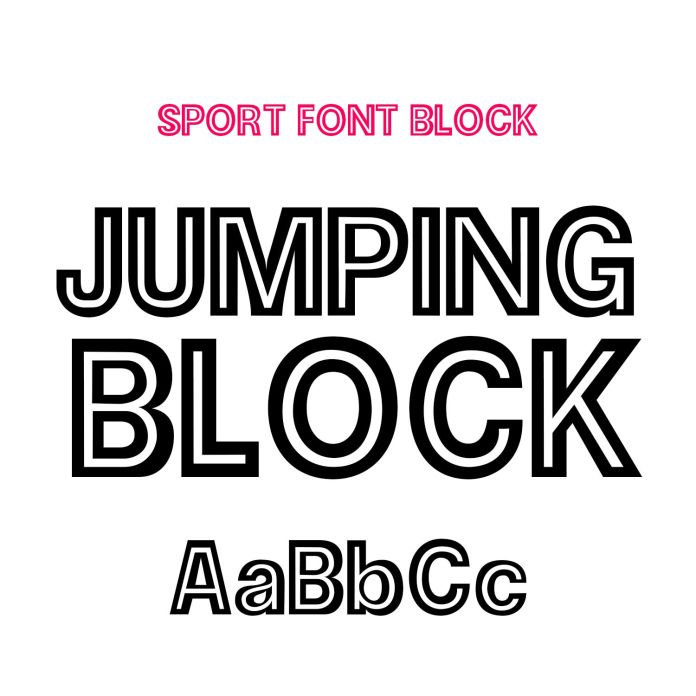
Jumping Block features a bold, straightforward centerline display style that is perfect for any design project. Since this font has a sharp and natural cut, it is a very dynamic product font used for projects, logos, branding, screen printing, crafts, advertising, and celebration personalization. etc . Includes alphabet, ligature, numbers and punctuation.